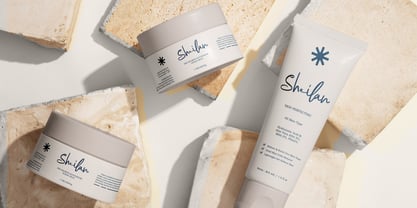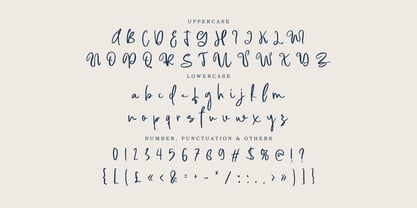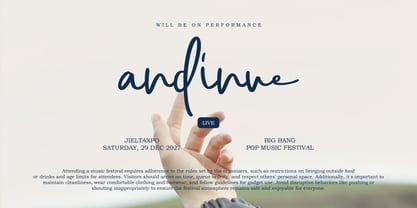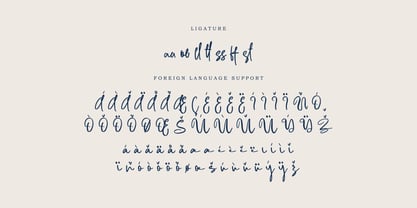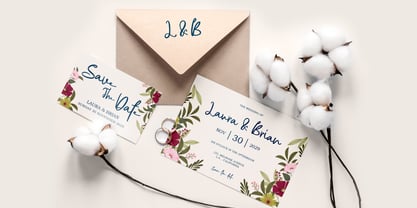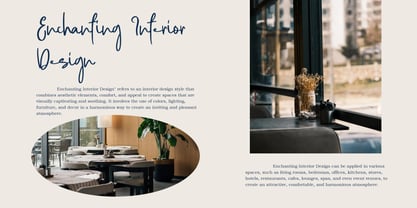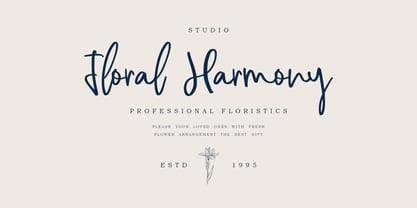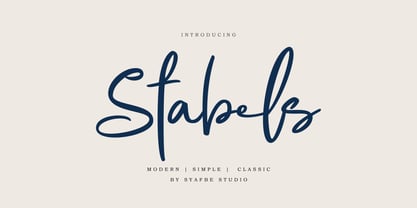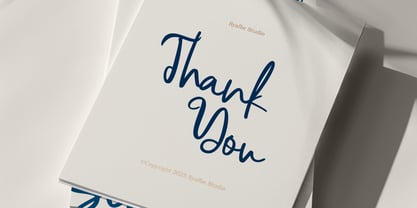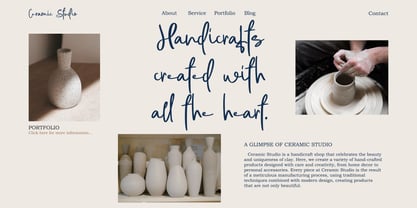
Stabels
by Syafbe
The Stabels Font Family was designed by Syafwan Mus and published by Syafbe. Stabels contains 1 styles. More about this family
Stabels: The Perfect Blend of Modern Simplicity and Classic Elegance Stabels font strikes an ideal balance between contemporary simplicity and classic elegance, offering a harmonious design that is both stylish and timeless. With its flowing curves, clean lines, and subtle variations in thickness, this font exudes natural movement while maintaining superb legibility. The rounded edges and refined transitions between characters invite a sense of calm and balance, reflecting stability and consistency through its structured design. Versatile Design for Diverse Applications Stabels is a versatile choice for various applications, whether in branding, corporate identity, invitations, or digital media. It infuses a modern professionalism that remains approachable and warm. The elegant balance of its form is perfect for businesses and creative projects aiming to blend casual and refined aesthetics. Its flowing design adds a personal, human touch, while the clarity of its lines ensures that it remains professional and clear. Stabels adapts to luxury brands as easily as to modern startups, enhancing any project with its timeless charm and versatile appeal. Embrace this font for a consistent, reliable, and naturally beautiful design solution.